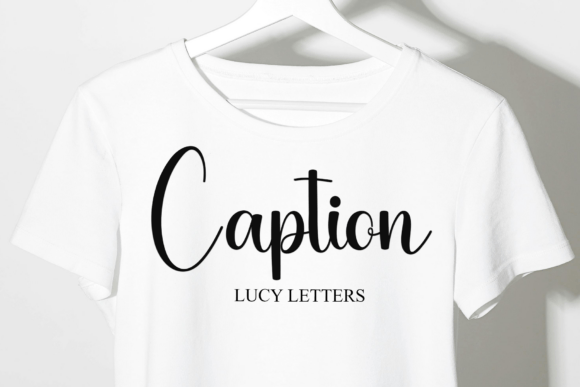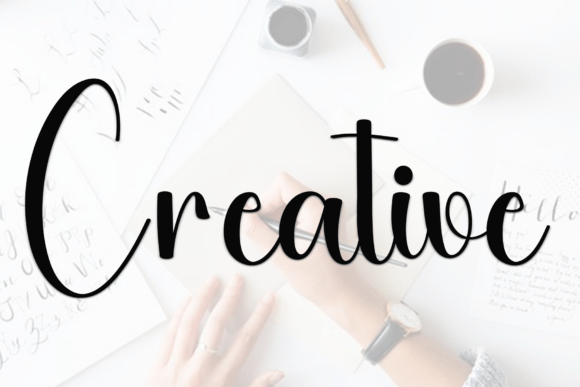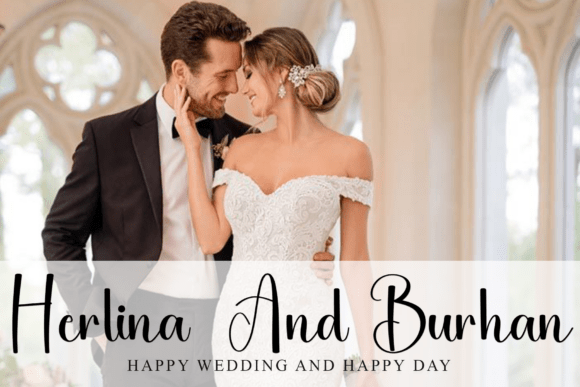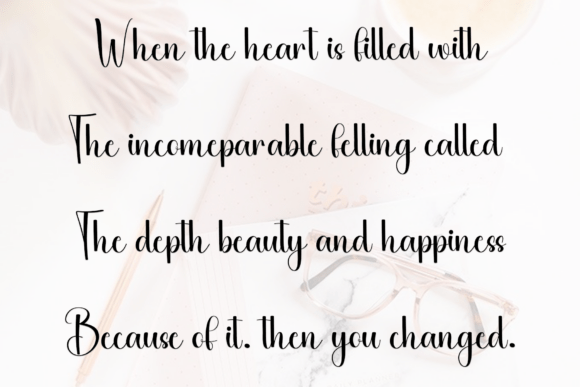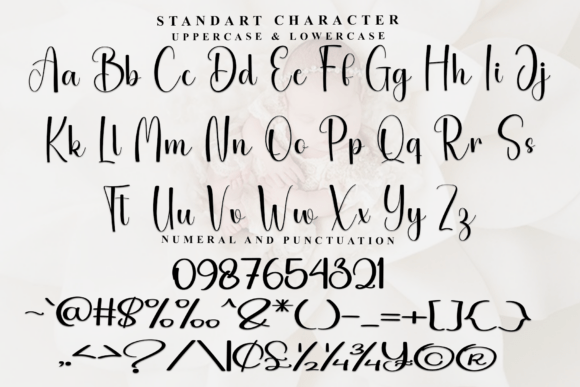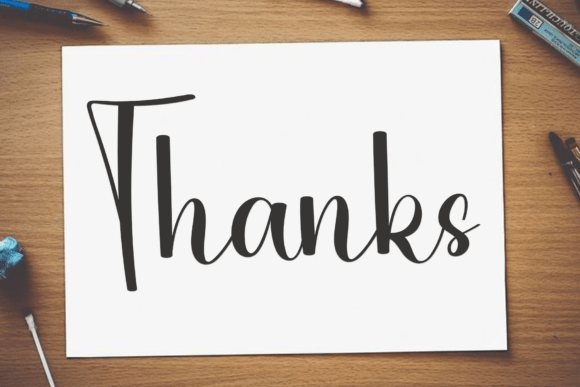
Discover the Effortless Charm of Beauty Autography Font
In the world of typography, few fonts manage to capture the essence of elegance and sophistication as effortlessly as Beauty Autography. This modern calligraphy font is designed to bring a touch of personalized charm to your creative projects, making it an exceptional choice for designers and crafters looking to add a dash of refinement to their work.
The Unique Characteristics of Beauty Autography
Beauty Autography boasts tall, graceful letterforms with a rhythmic, monolinear flow that mimics the casual yet sophisticated look of handwritten notes. Its clean loops and balanced verticality provide a contemporary aesthetic that is both visually striking and highly legible. This font’s unique blend of traditional calligraphy and modern sensibilities makes it an excellent addition to any design project.
Perfect for Boutique Branding and Lifestyle Graphics
Beauty Autography is particularly well-suited for boutique branding, where a touch of elegance and sophistication can make all the difference. Its refined appearance and polished feel make it an excellent choice for lifestyle social media quote graphics, where it can help to elevate your message and engage your audience. Whether you’re looking to create a cohesive brand identity or simply want to add a touch of personality to your social media posts, Beauty Autography is an excellent choice.
Elevate Your Wedding Stationery and Packaging
For crafters and designers specializing in wedding stationery and artisanal product packaging, Beauty Autography offers a wealth of creative possibilities. Its beautiful, flowing letterforms and classic charm make it an ideal choice for wedding invitations, save-the-date cards, and other special occasion stationery. Similarly, its sophisticated appearance and refined feel make it well-suited for artisanal product packaging, where it can help to convey a sense of luxury and exclusivity.
The Benefits of Using Beauty Autography
So why choose Beauty Autography for your design projects? Here are just a few benefits of using this exceptional font:
- Effortless elegance: Beauty Autography’s refined appearance and polished feel make it an excellent choice for designers and crafters looking to add a touch of sophistication to their work.
- Versatility: This font’s unique blend of traditional calligraphy and modern sensibilities makes it suitable for a wide range of design projects, from boutique branding to wedding stationery.
- Legibility: Beauty Autography’s clean loops and balanced verticality provide a high level of legibility, making it easy to read and understand.
- Professional artisanal beauty: This font’s classic charm and sophisticated appearance make it an excellent choice for designers and crafters looking to convey a sense of luxury and exclusivity.
Adding a Touch of Polished Warmth to Your Visual Identity
Beauty Autography delivers a sense of polished, human-centric warmth and professional artisanal beauty to your visual identity, ensuring every word feels both intimate and legendary. Whether you’re looking to create a cohesive brand identity, elevate your social media graphics, or simply add a touch of elegance to your design projects, this exceptional font is sure to impress.
In conclusion, Beauty Autography is a modern calligraphy font that offers a unique blend of elegance, sophistication, and versatility. Its refined appearance, polished feel, and exceptional legibility make it an excellent choice for designers and crafters looking to add a touch of refinement to their work. Whether you’re specializing in boutique branding, lifestyle graphics, wedding stationery, or artisanal product packaging, Beauty Autography is sure to become a valuable addition to your design toolkit.